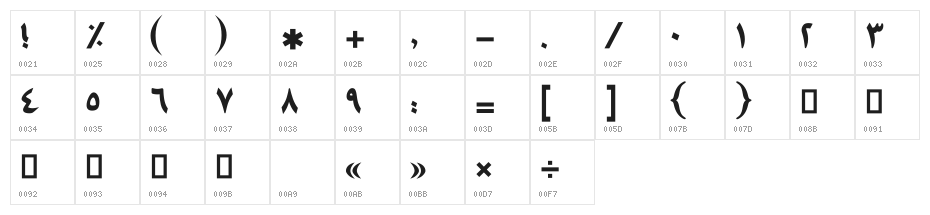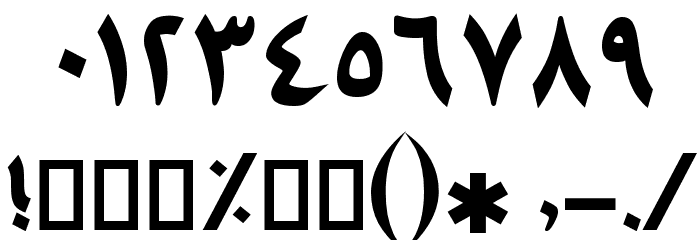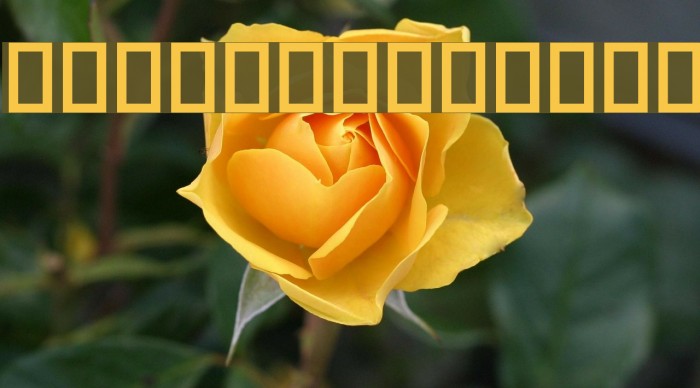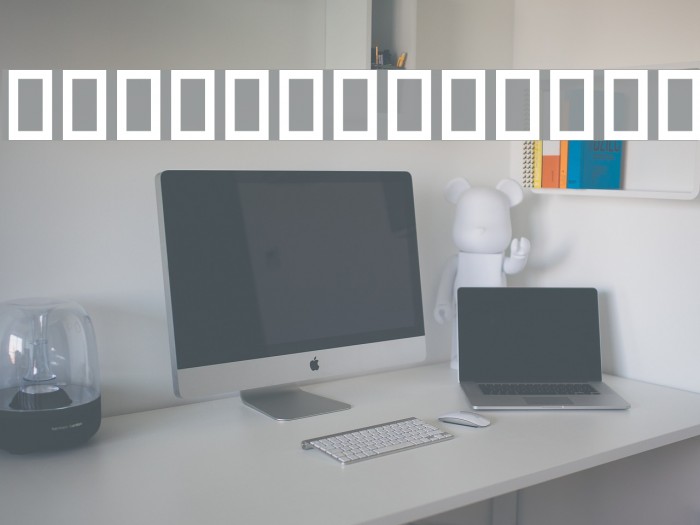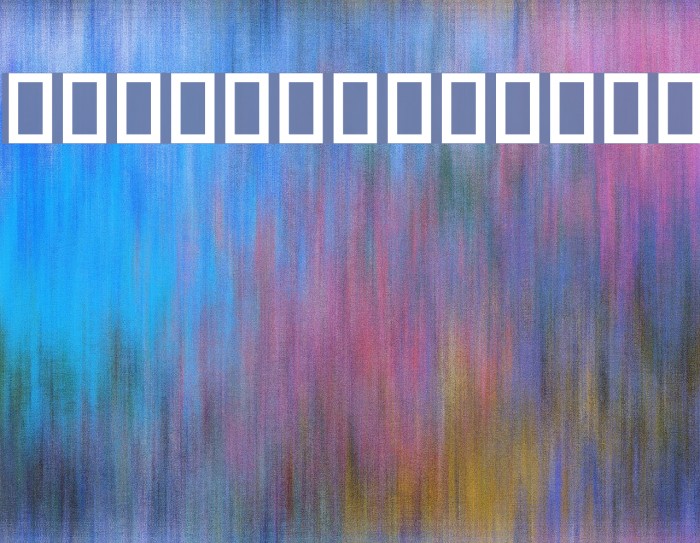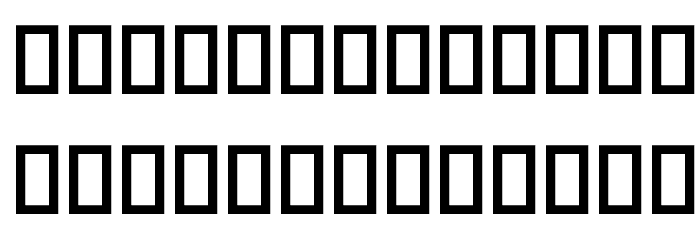
Tasmim Font
Tasmim Description
This font features a bold and striking design with a unique blend of geometric shapes and traditional elements. The characters are well-defined with a strong presence, making them highly legible and impactful. The numerals are distinct and carry a cultural flair, adding an exotic touch to the overall appearance. The special characters are crafted with precision, maintaining the font's cohesive style. This font is ideal for projects that require a bold and memorable statement.
| Proposed Projects | Ideal for branding, posters, cultural events, and editorial design. |